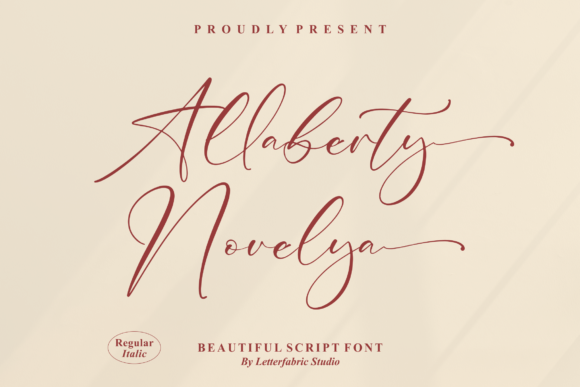
Behold, Allaberty Novelya — a resplendent script font, crafted to bestow your designs with an aura of elegance and charm. Its delicate strokes, reminiscent of a calligrapher's quill, dance across the page, exuding a timeless sophistication that captivates the hearts of all who lay eyes upon it.
With Allaberty Novelya as your creative companion, your branding projects will flourish, assuming an identity both distinctive and memorable. Envision your logos, etched in this font's refined script, radiating an air of exclusivity that sets your brand apart from the mundane. Or picture your t-shirts, adorned with messages penned in Allaberty Novelya's graceful curves, becoming instant conversation starters, drawing admiring glances wherever you go.
The versatility of Allaberty Novelya knows no bounds, extending beyond the realm of branding into the world of creative products. Unleash your imagination and craft stunning invitations, greeting cards, and posters that emanate a sense of heartfelt warmth and individuality. Let your words take flight, carried by Allaberty Novelya's ethereal beauty, and watch as they leave an indelible mark on the hearts of your recipients.
Step into a world where elegance and creativity converge, where your designs transcend the ordinary and take on an extraordinary allure. With Allaberty Novelya as your font of choice, you hold the power to transform the mundane into the mesmerizing, the ordinary into the unforgettable. Seize this opportunity to elevate your designs to new heights and leave a lasting impression that echoes through time.